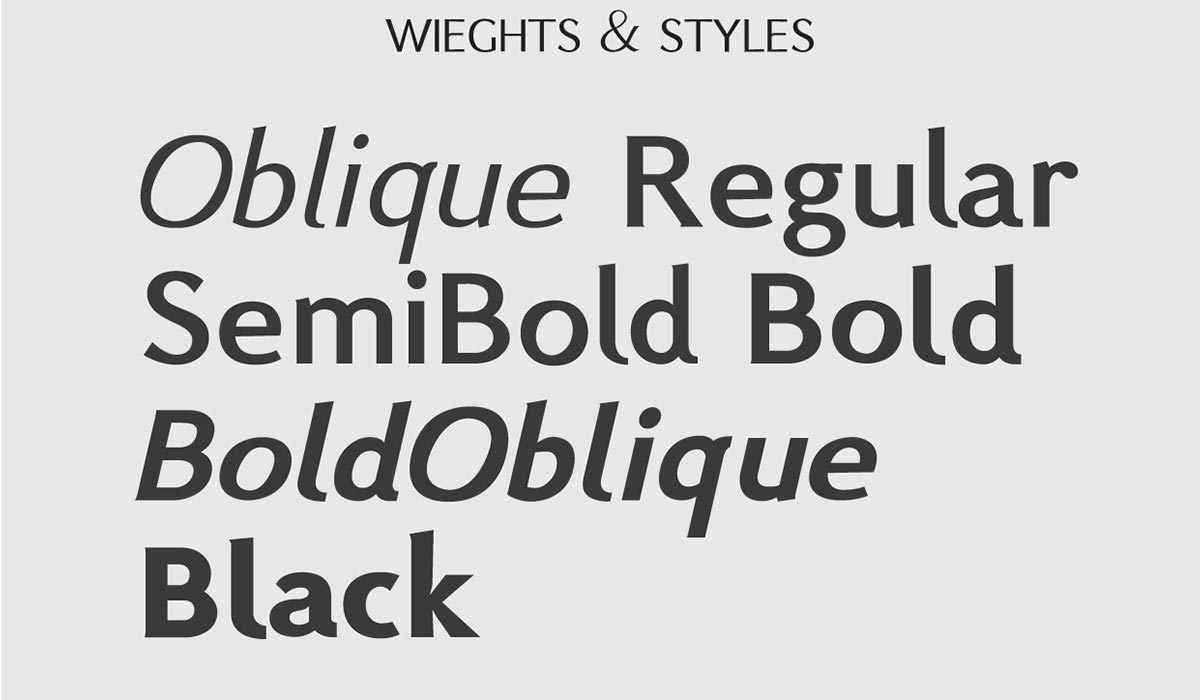
BSRU Bansomdej – Free Font
BSRU Bansomdej—Free Font is a display typeface family inspired by contemporary classic Thai style. This typeface has many alternative weights (4 Weights & 6 Styles). It is perfect for posters headlines and body text (especially the Latin type). Feel free to use it both for your personal and commercial projects. Anyways, This free font is free for personal and commercial use.